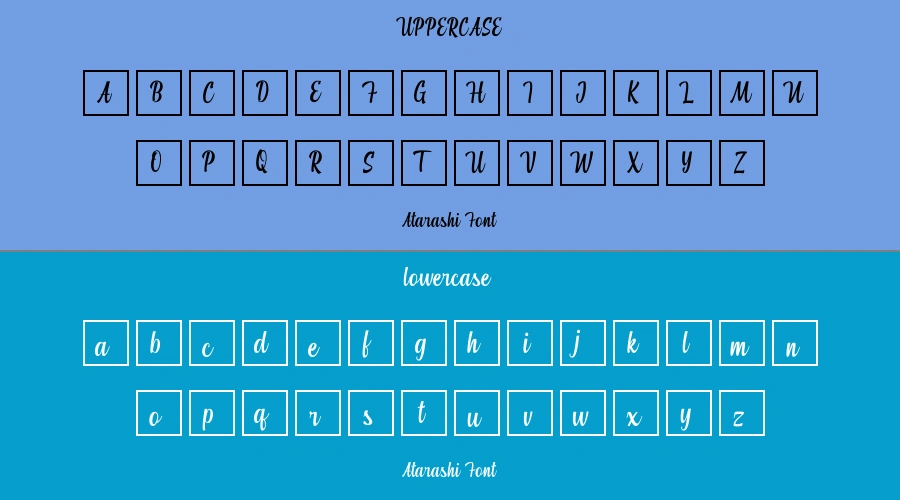
About Atarashi Font
Atarashi Font stands out for its distinctive combination of playful elements and visual appeal. Ideal for brand launches, it provides the clarity and market appeal that professional projects demand. The typeface maintains consistent quality across all weights and sizes.
Key features include refined commanding presence and practical careful spacing, enhancing typographic expression. In academic theses applications, Atarashi Font demonstrates exceptional microfilm readability. The ear formation and market position contribute to its distinctive character and professional appeal.